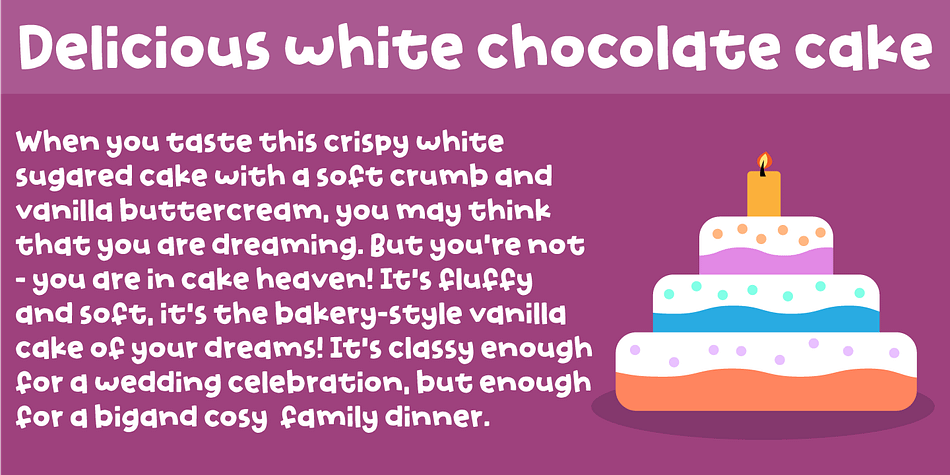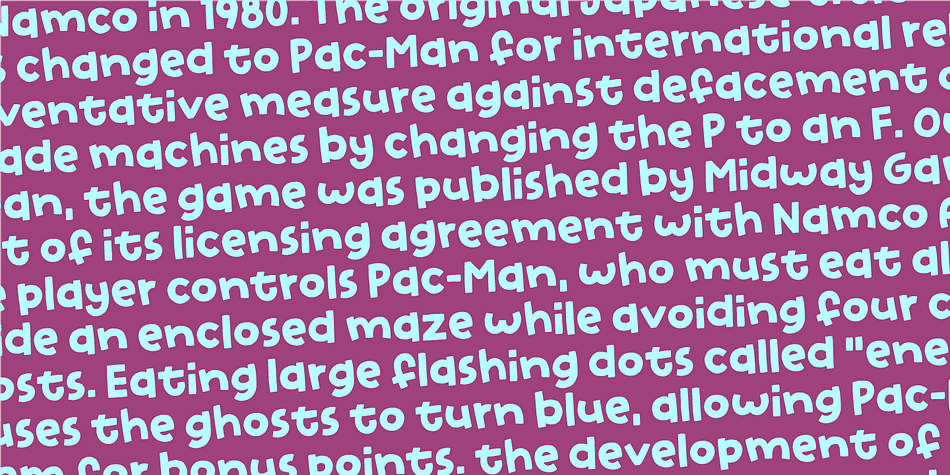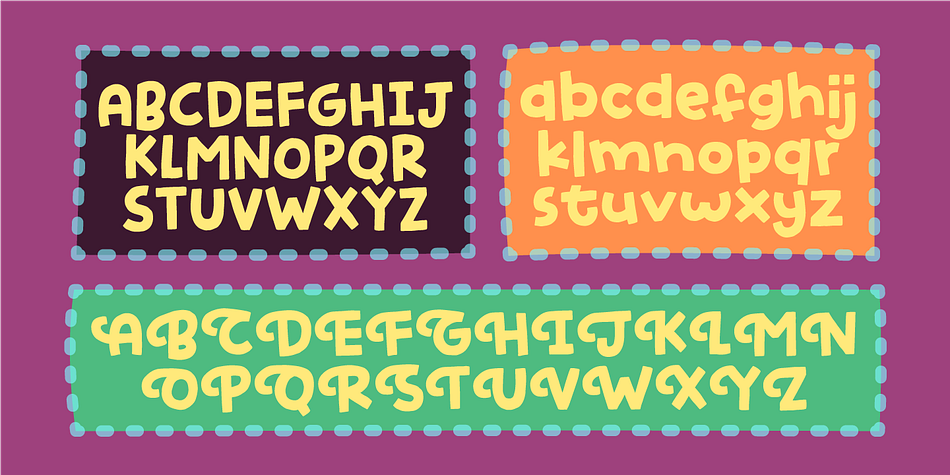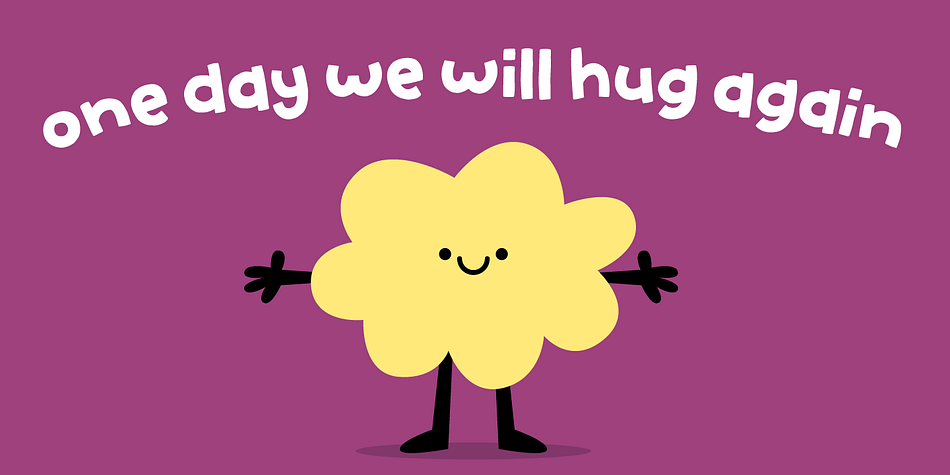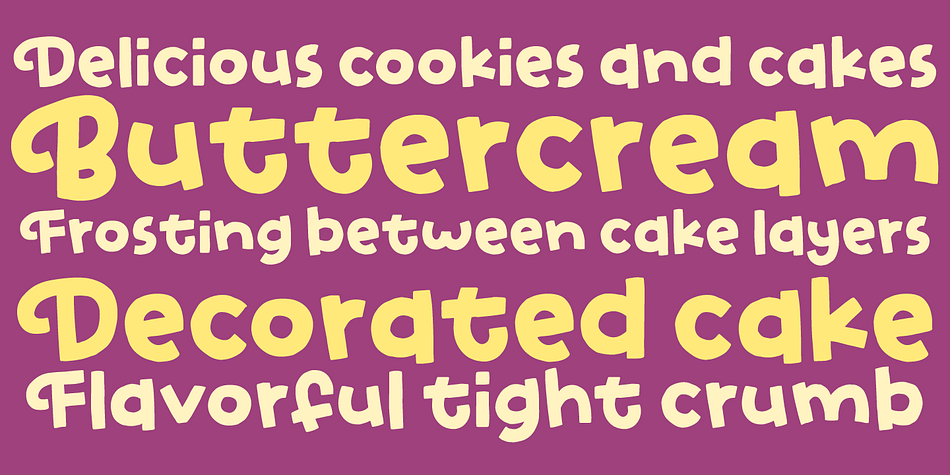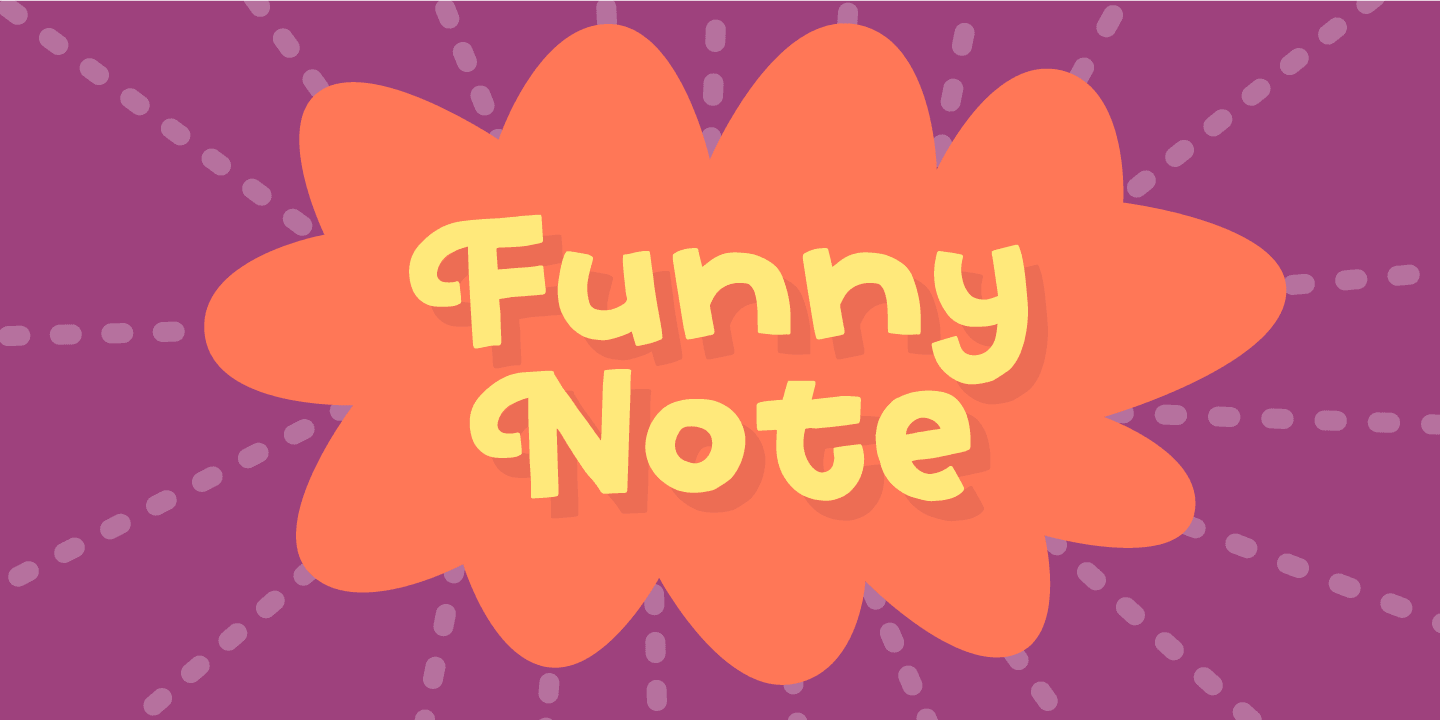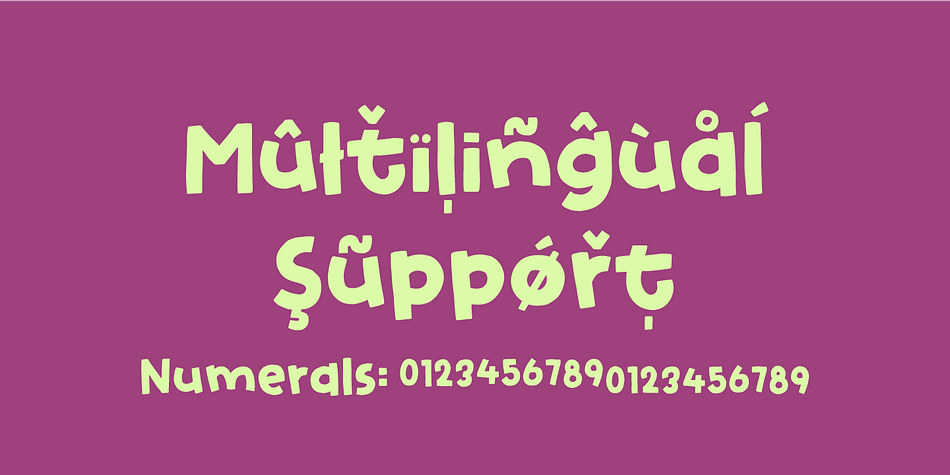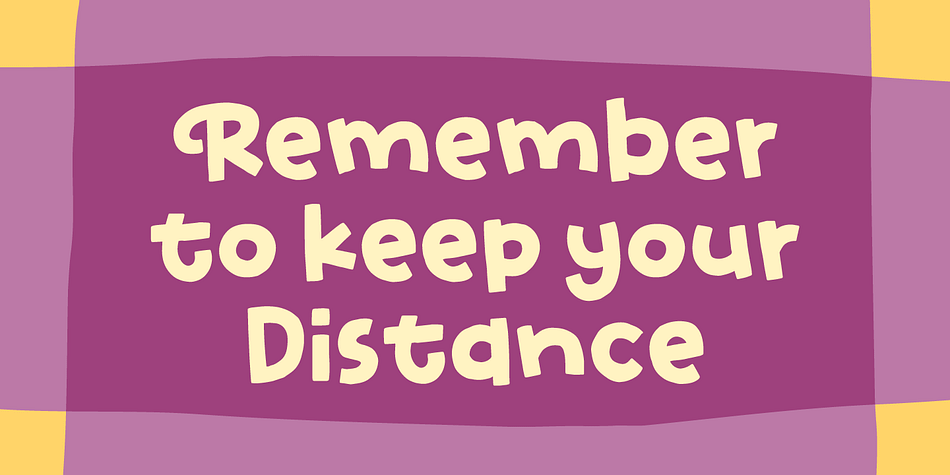
Designed by Jakob Fischer, Funny Notes is a hand display and kids font family. This typeface has two styles and was published by Pizzadude.dk.
Funny Note is based on a recipe for a vanilla cake. And how is that? The reason is that Funny Note is full of calories, vanilla and a spoonful of comic soft crumb!
Each capital letter has a swirly version and there is multilingual support!